Oswald is a free, open-source sans-serif font by Vernon Adams, inspired by Gothic and grotesque styles from the late 19th century. Available in light, normal, and bold weights, it’s a popular choice for headlines, branding, and web design. However, finding the right fonts that pair with Oswald is not that easy.
Luckily, Oswald pairs well with serif, sans-serif, and even script fonts, making it highly versatile. Whether for websites, logos, or marketing materials, the right pairing can elevate your design. In this guide, we’ll explore 15 font combinations that work seamlessly with Oswald. Follow through!
- Oswald pairs well with serif, sans-serif, and script fonts, making it highly versatile.
- Choosing the right font combination enhances readability and visual appeal.
- Popular pairings include Lora and Poppins for a modern, professional look.
1. Lora
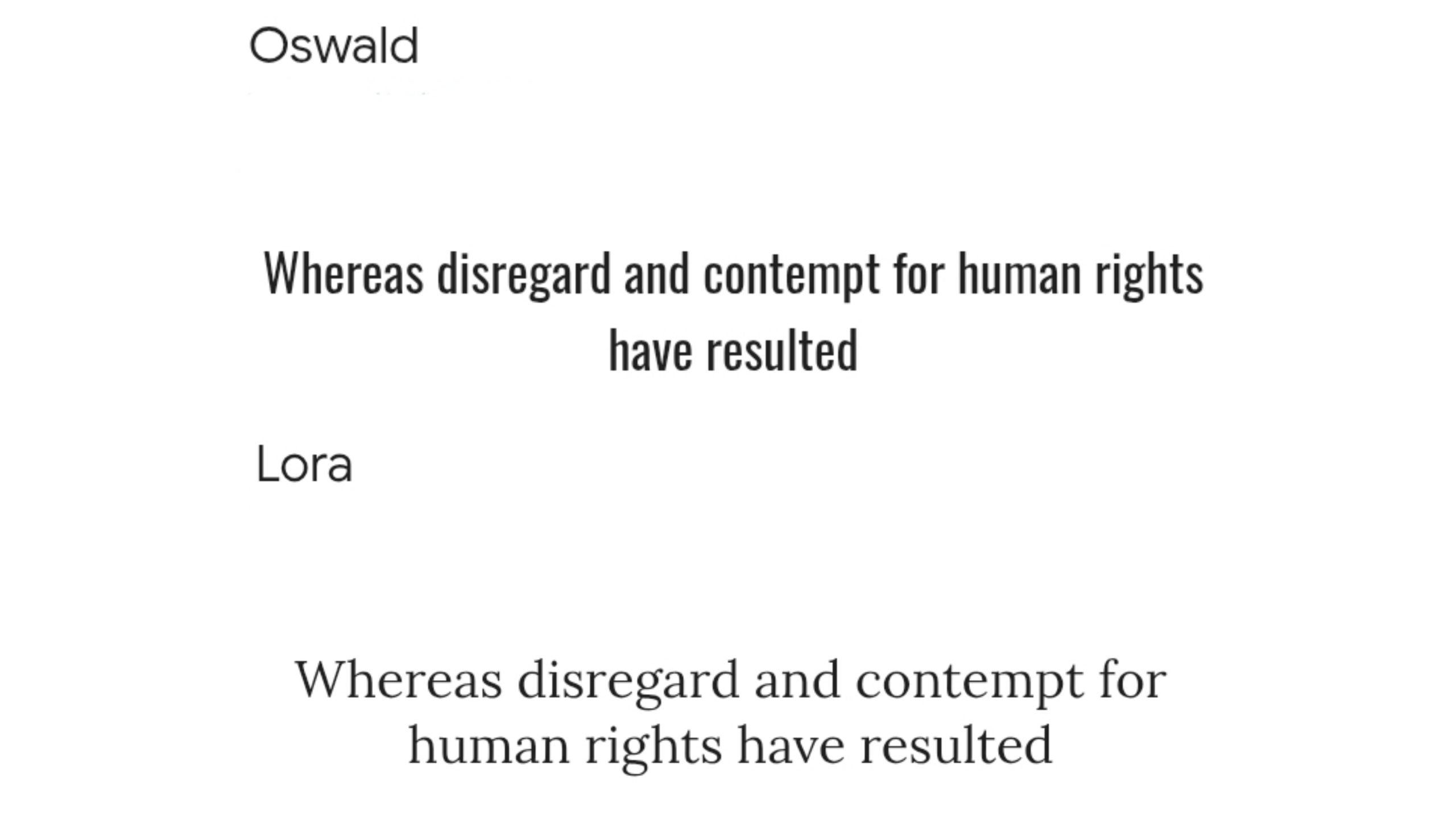
Lora is a contemporary serif typeface with moderate contrast, offering a balance between modern and traditional design. Its readability and elegance make it an excellent choice for body text when paired with Oswald’s strong headlines.
2. Merriweather
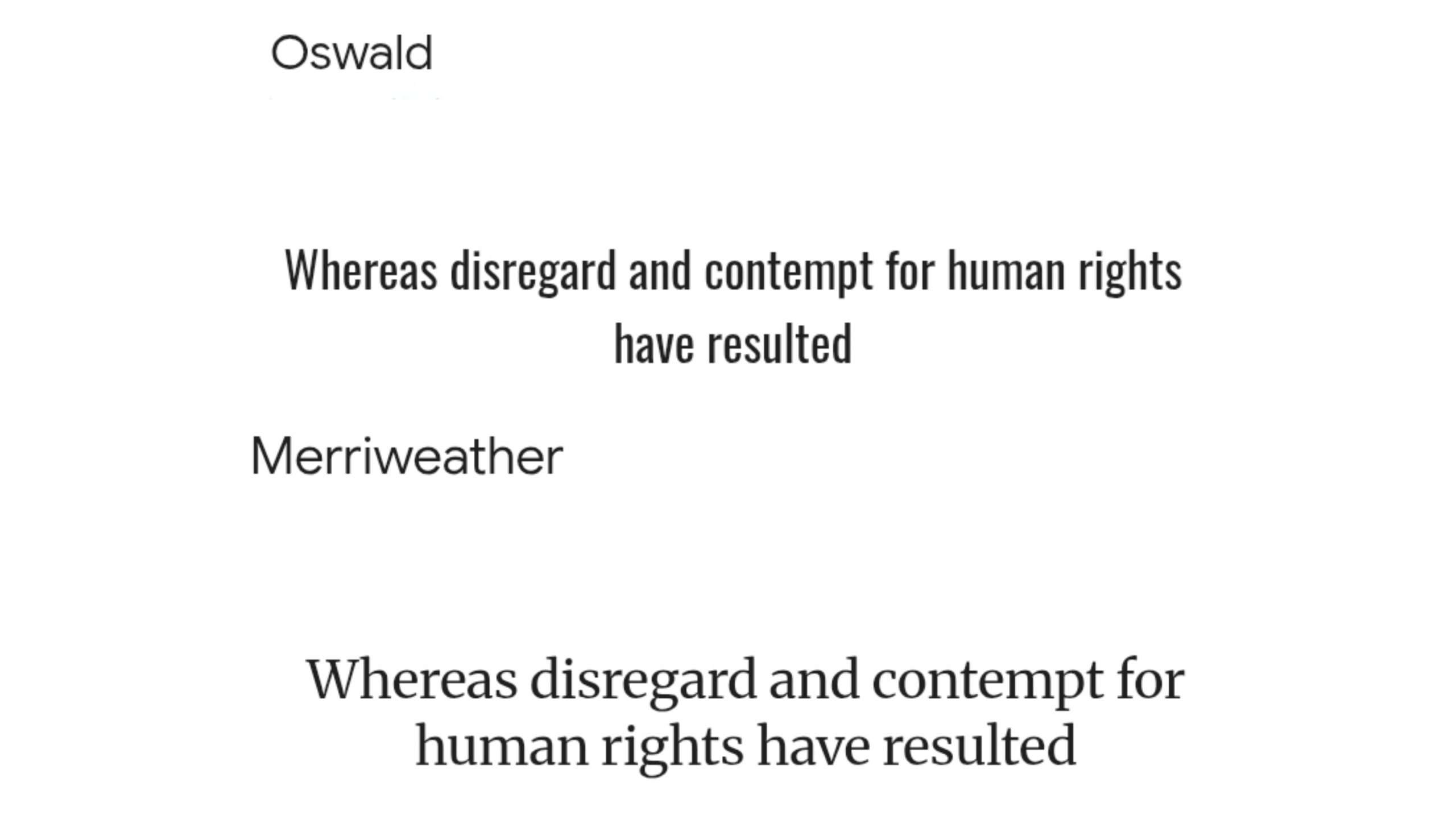
Merriweather is one of the serif fonts that pair well with Oswald, offering on-screen readability and a slightly condensed letterform with a large x-height. Its traditional feel complements Oswald’s modern aesthetic, providing a pleasing contrast in design.
3. EB Garamond
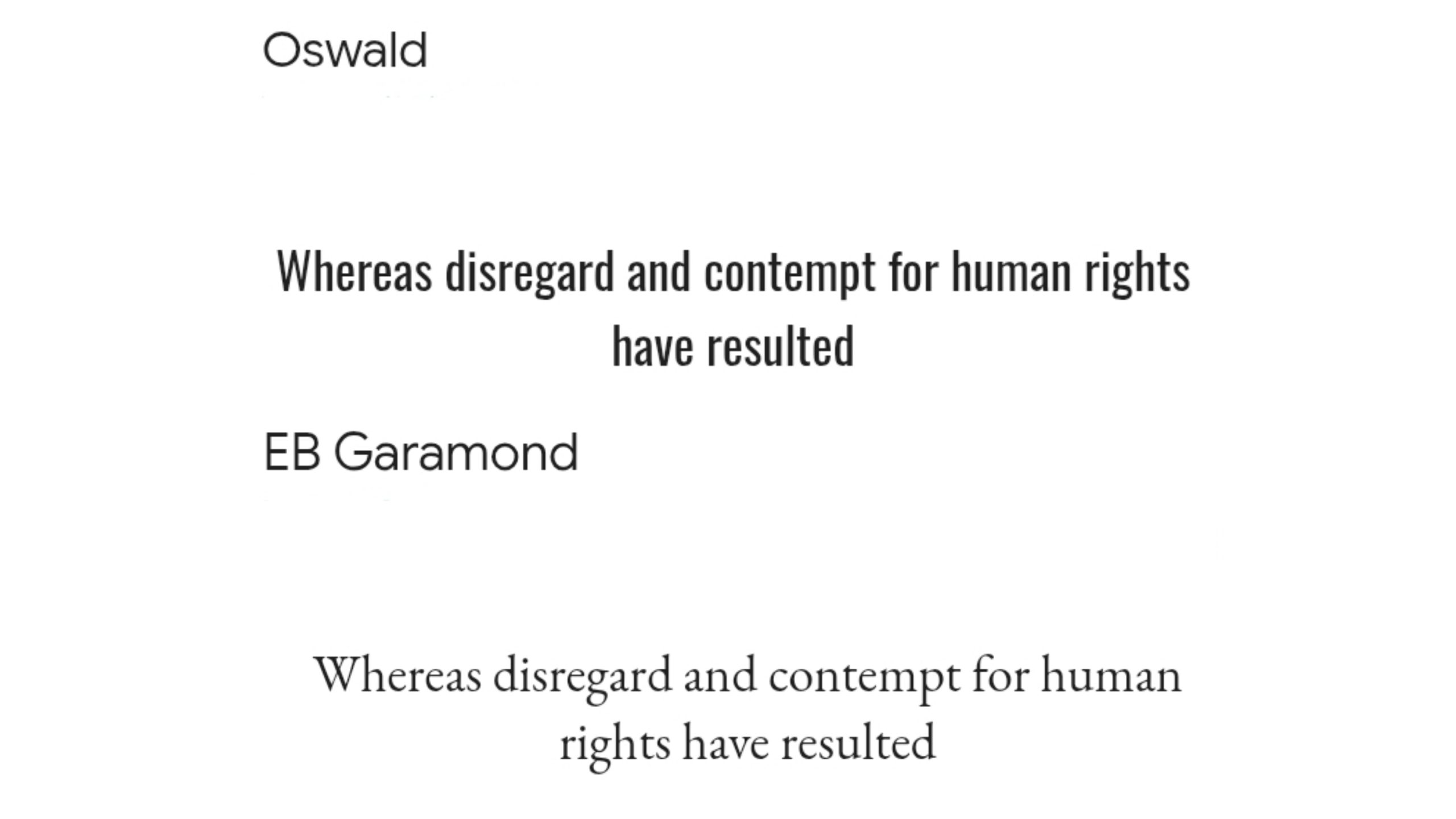
EB Garamond is a classic serif font known for its timeless elegance and refined details. When combined with Oswald’s bold presence, it creates a striking contrast that enhances both readability and sophistication. This pairing is ideal for high-end branding, book covers, and editorial layouts.
4. Playfair Display
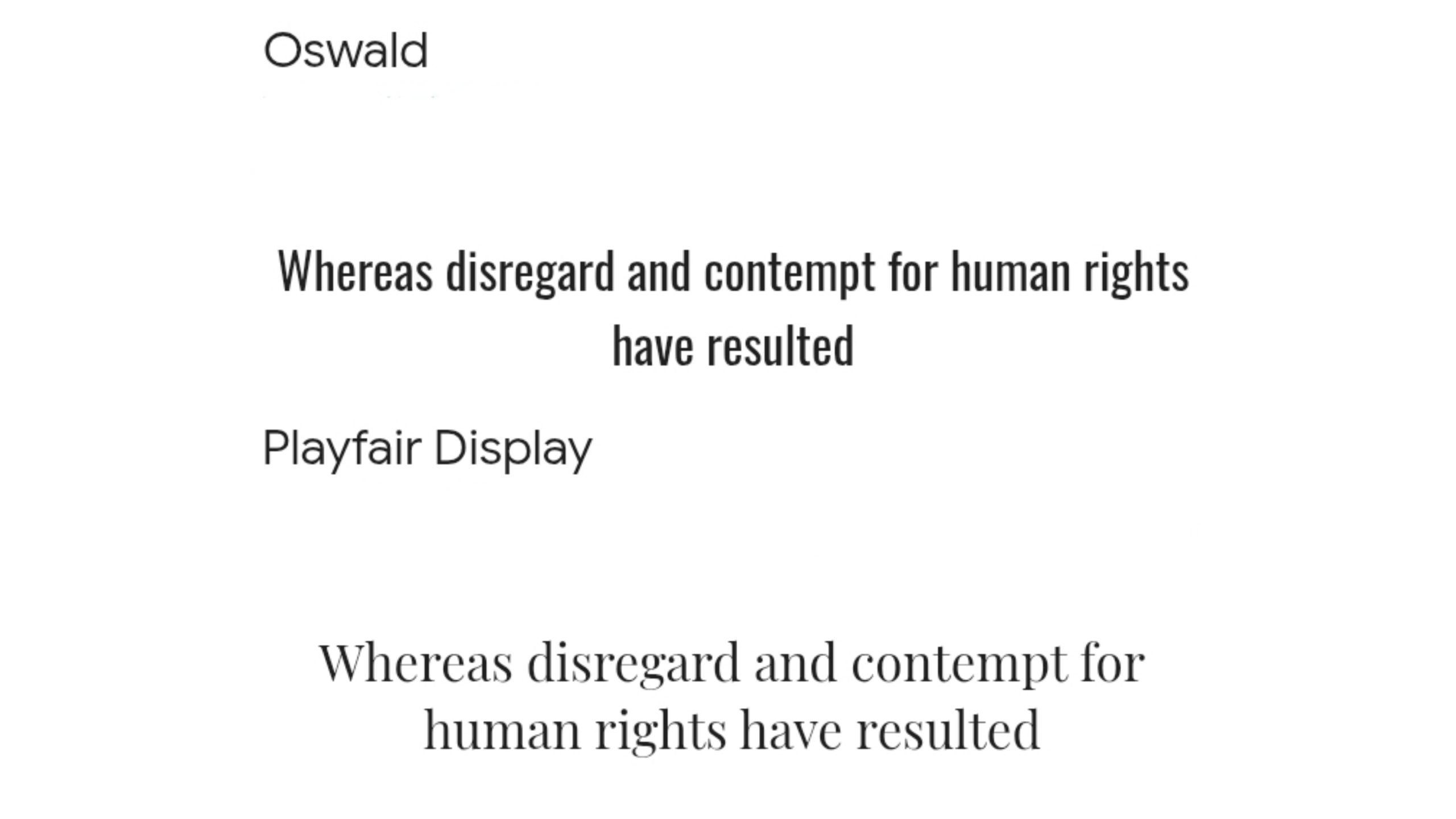
Playfair Display is a stylish, high-contrast serif typeface with a sophisticated look. Its elegant curves and distinctive letterforms provide a nice contrast to Oswald’s structured appearance. This is the font that pairs well with Oswald for fashion, luxury brands, and editorial designs.
5. Eczar
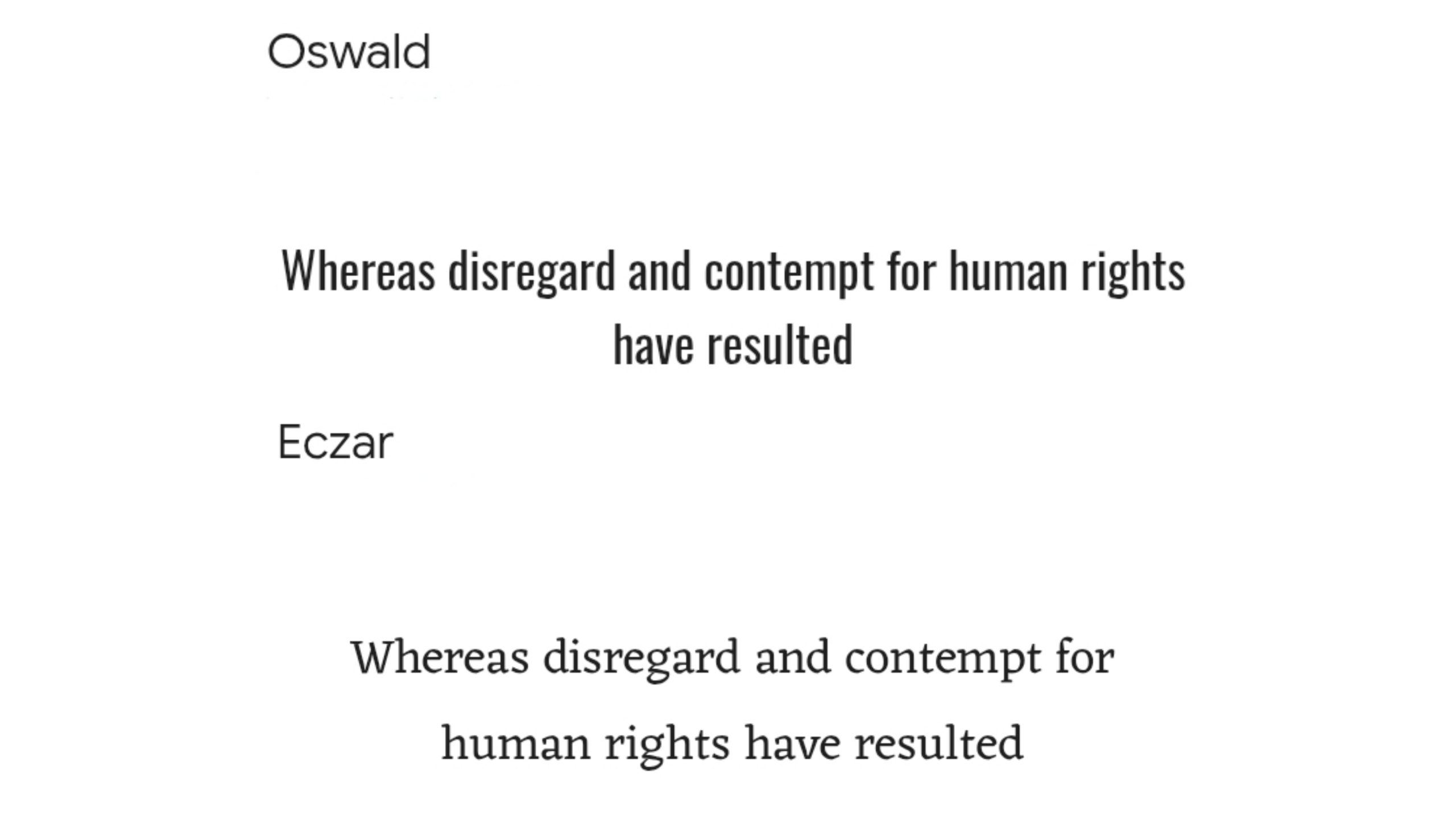
Eczar is a bold serif typeface with high contrast, making it an eye-catching choice for typography. When paired with Oswald, it creates a visually dynamic and engaging design. This combination works well for branding, magazine layouts, and posters.
6. Roboto
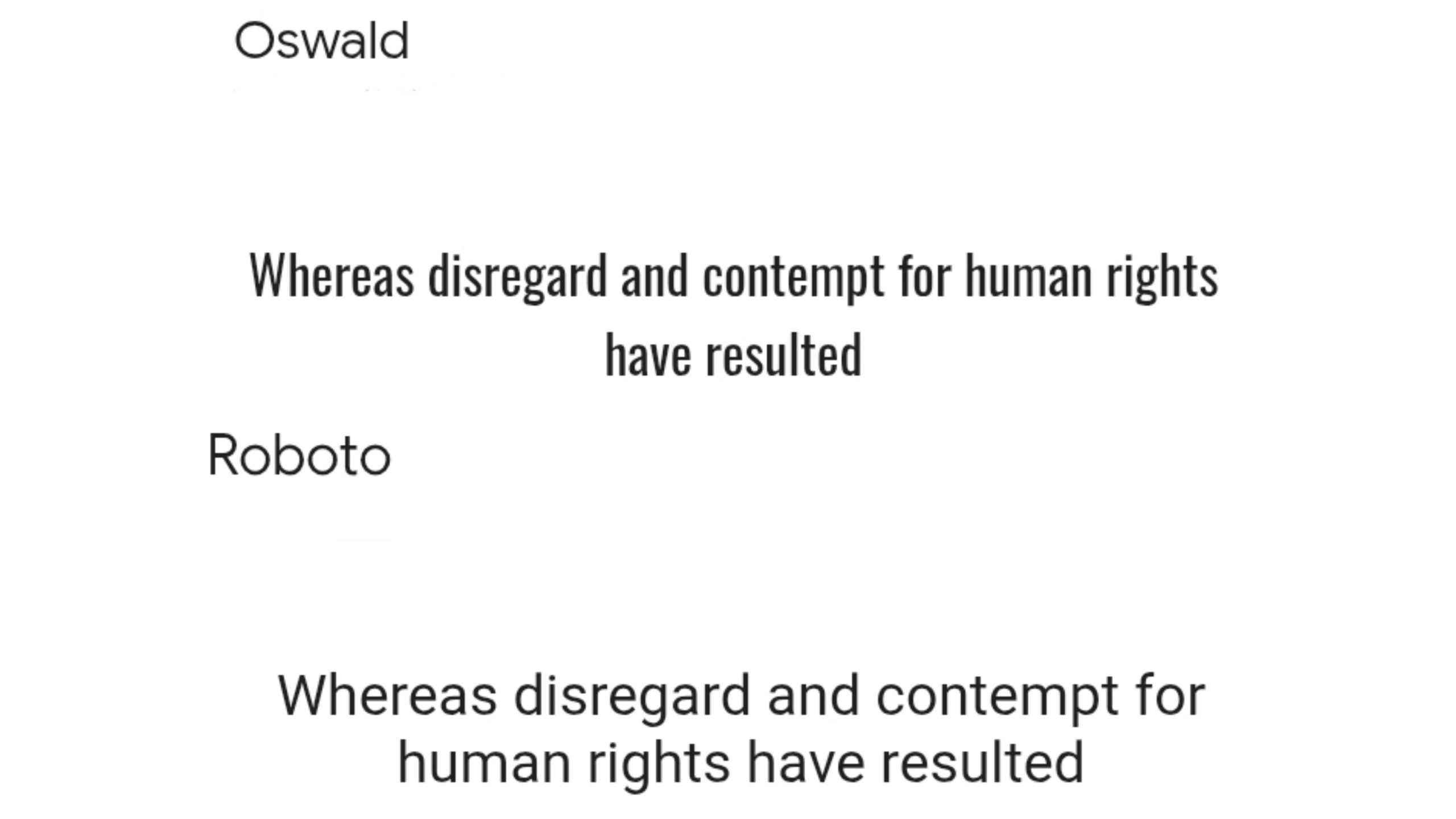
Roboto is a clean and versatile sans-serif font that pairs well with many typefaces. Its modern, neutral look balances Oswald’s boldness, creating a structured yet approachable design. This pairing is perfect for digital platforms, user interfaces, and corporate branding.
7. Raleway
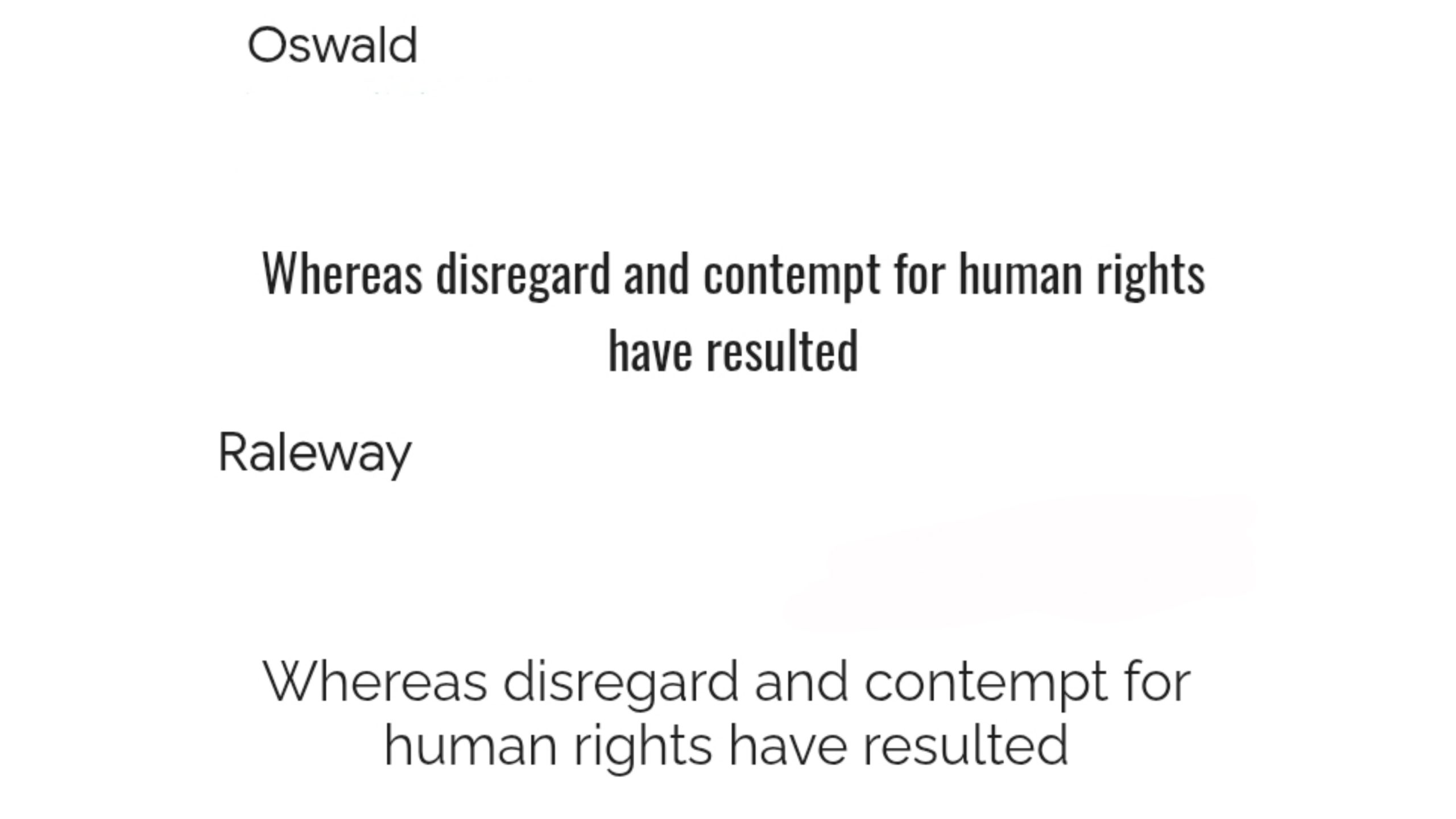
Raleway is a sleek sans-serif font with thin strokes and a modern geometric structure. Its elegant, light appearance contrasts well with Oswald’s heavy letterforms, making it ideal for minimalist designs. This pairing works well for logos, websites, and tech-related projects.
8. Open Sans
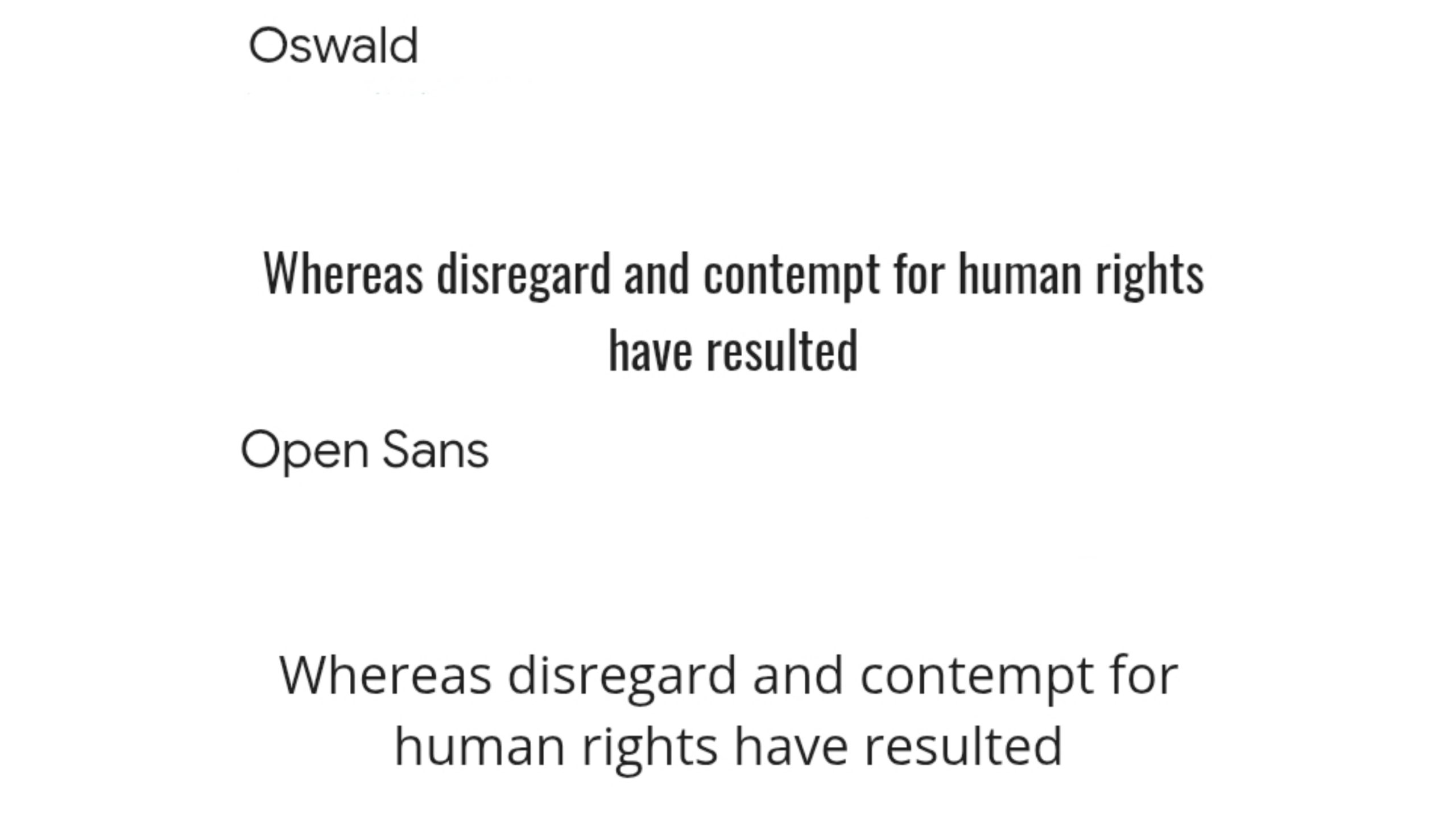
Open Sans is one of the humanist sans-serif fonts that pair with Oswald for a friendly and approachable design. Its neutrality and readability make it an excellent choice for body text alongside Oswald’s impactful headlines.
9. Lato
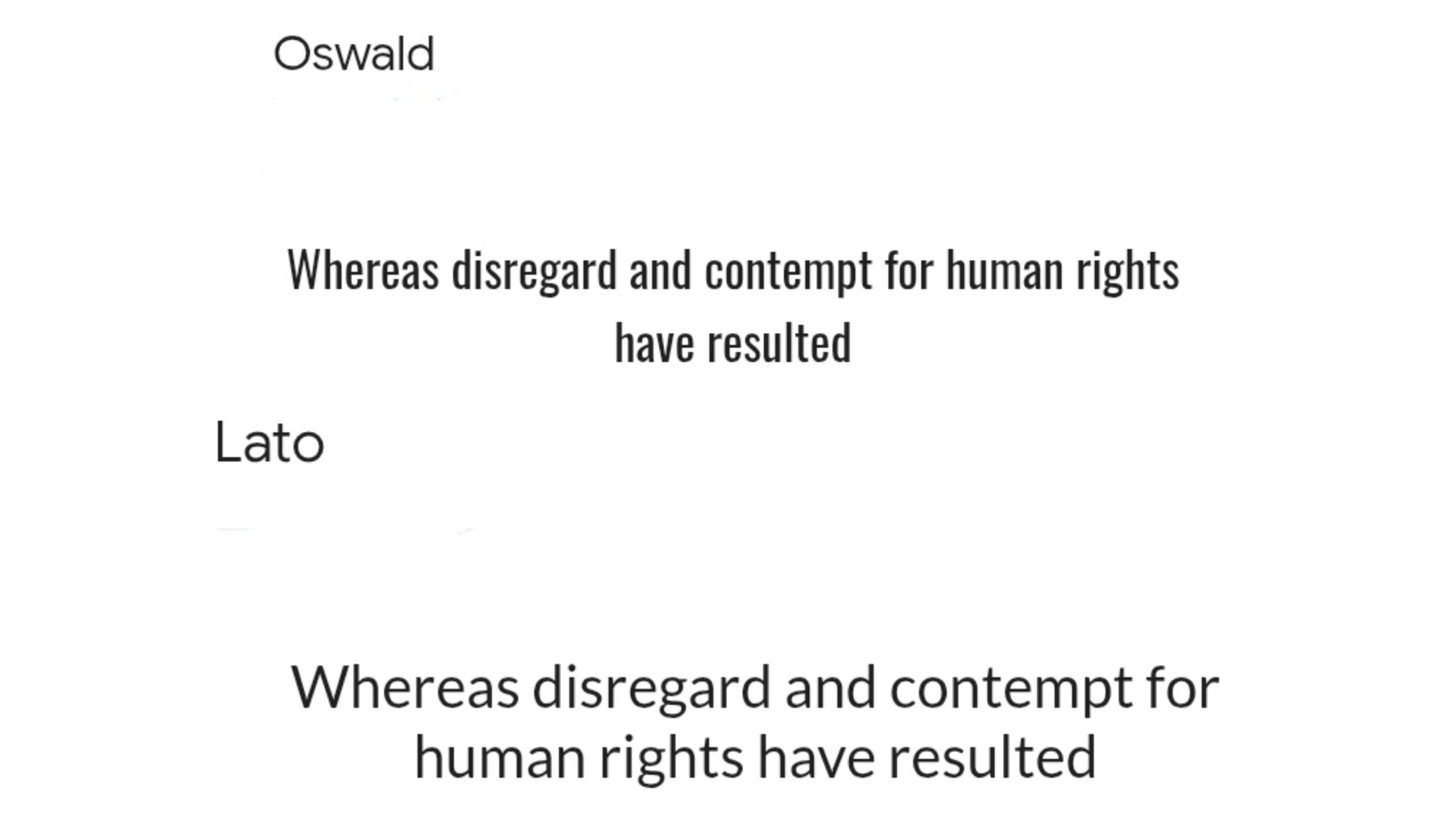
Lato is a sans-serif font with a clean and modern aesthetic, featuring smooth curves and a warm appearance. It provides a subtle contrast to Oswald’s bold and structured design, ensuring a visually pleasing composition. This pairing is great for branding, editorial layouts, and corporate identities.
10. Poppins
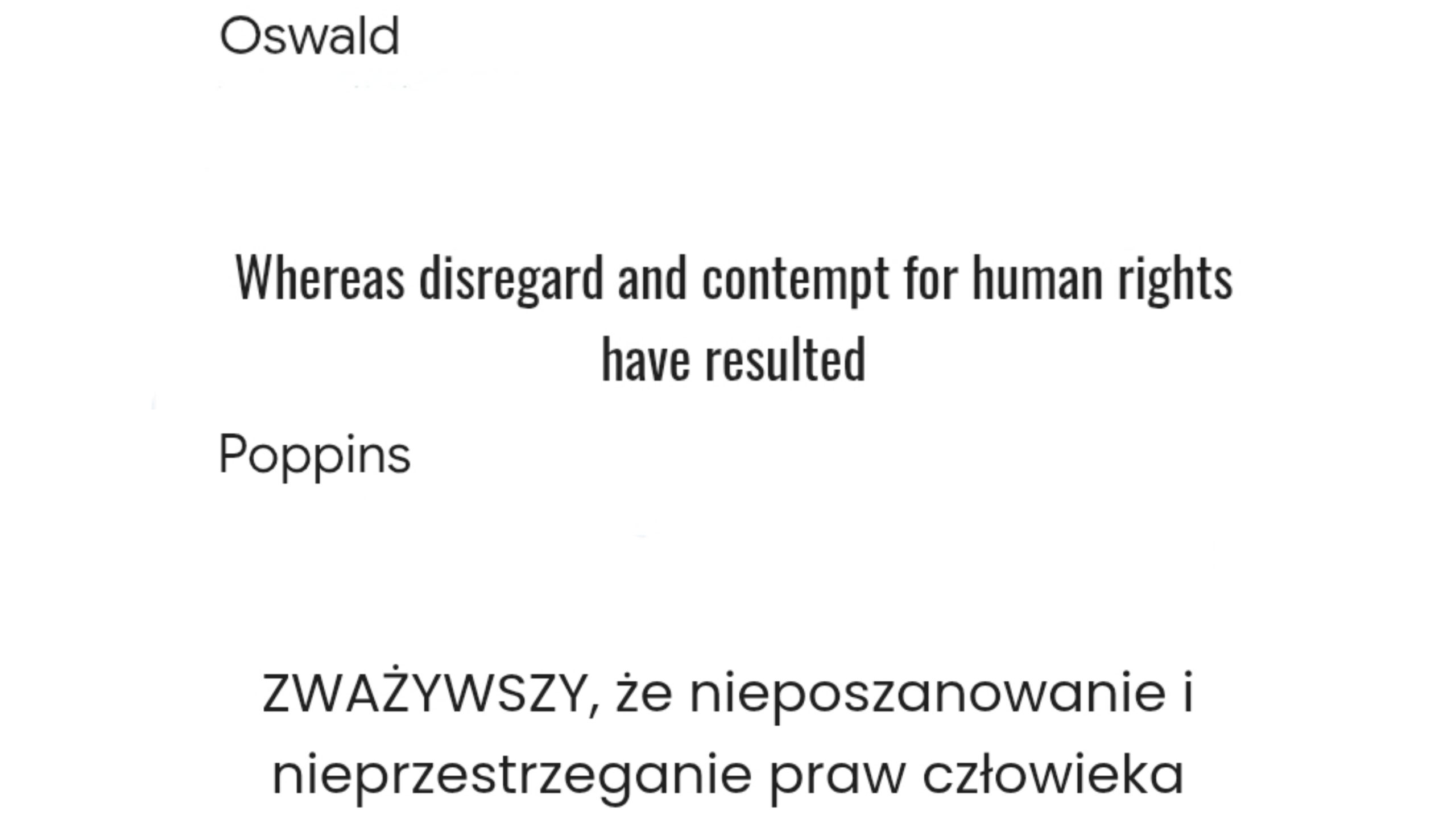
Poppins is a geometric sans-serif font with uniform strokes and a contemporary look. Its rounded letterforms contrast well with Oswald’s sharp structure, creating a balanced yet eye-catching design. This pairing is perfect for tech companies, startups, and modern websites.
11. Work Sans
Work Sans is a minimalist sans-serif font designed for digital readability. Its simple and refined structure complements Oswald’s strong personality without overpowering it. This combination works well for online publications, portfolios, and app interfaces.
12. Quicksand
If you’re looking for a font that pairs well with Oswald Canva, Quicksand is a great choice for creating modern and visually appealing designs. This pairing works well for social media graphics, presentations, and digital branding.
13. Oxygen
Oxygen is a clean and functional sans-serif typeface designed for screen readability. It pairs well with Oswald by providing a neutral and simple contrast that enhances readability. This combination is perfect for tech blogs, mobile apps, and corporate presentations.
Pairing Oswald with the right fonts enhances both readability and design appeal, ensuring a bold yet balanced look. Whether for websites, branding, or marketing materials, choosing fonts that pair with Oswald helps create a cohesive and professional style.